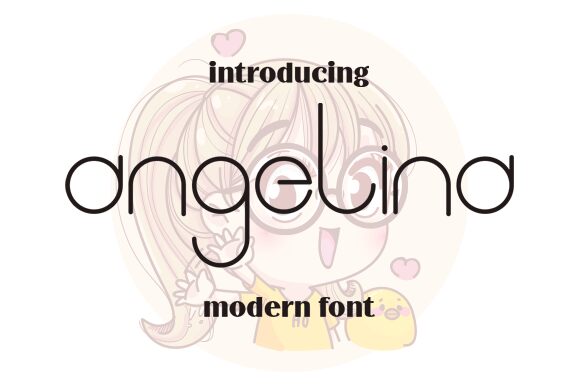
Angelina
Introducing Angelina - a beautiful, thin modern sans serif font designed by Anjas Cov Cava Lera. Perfect for a range of projects from modern posters to minimalist logos, Angelina's clean lines make it ideal for any design project.